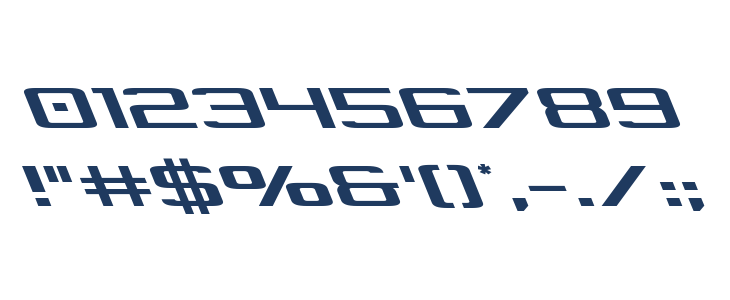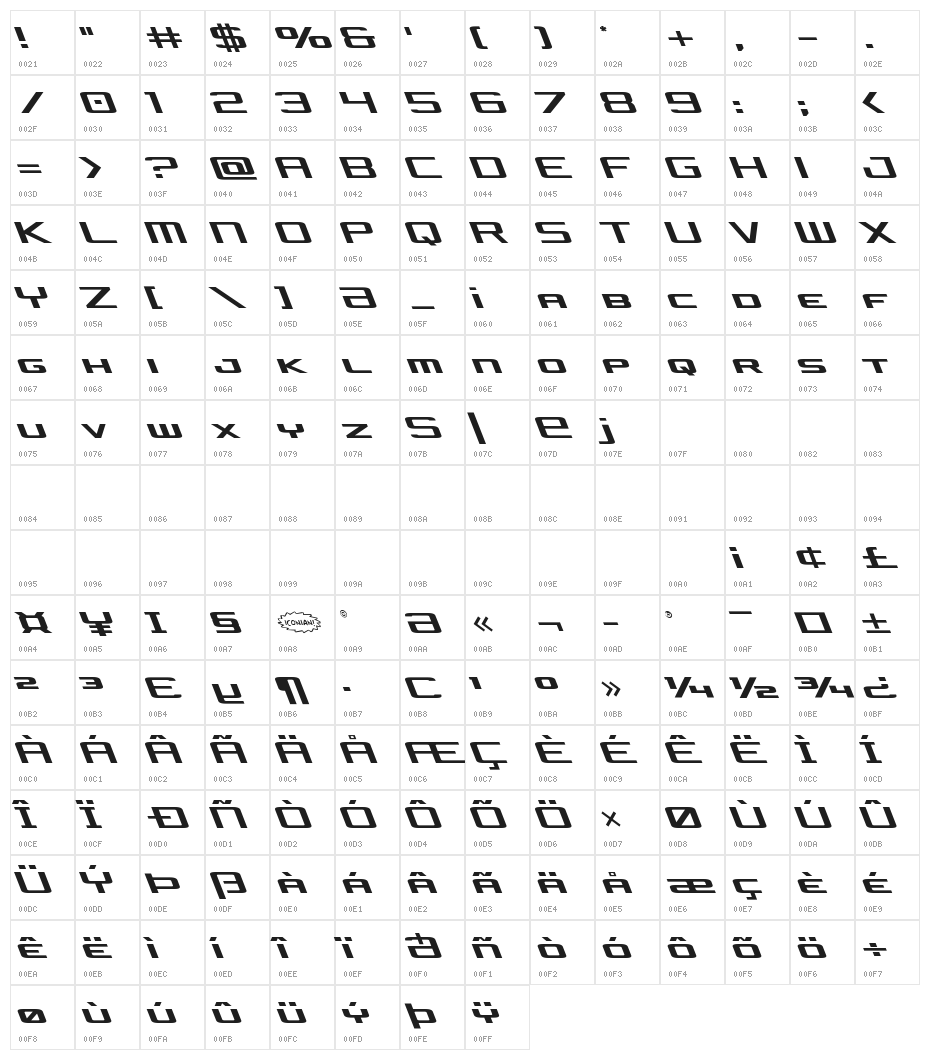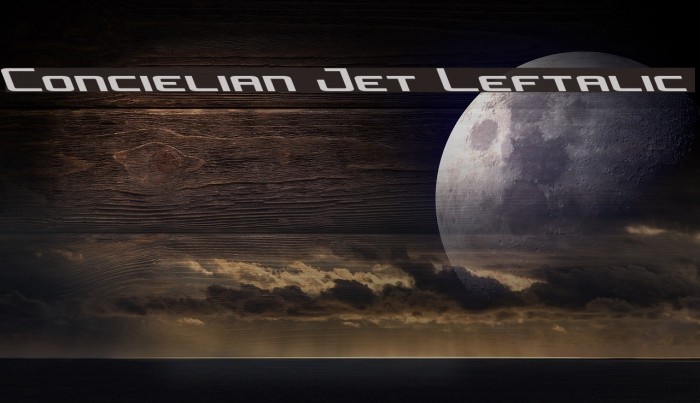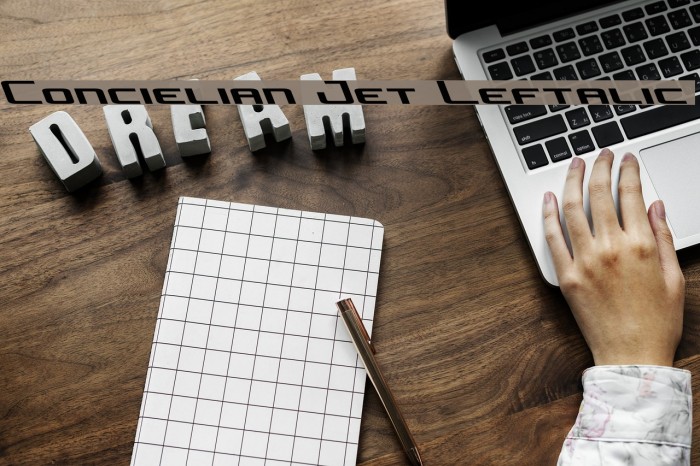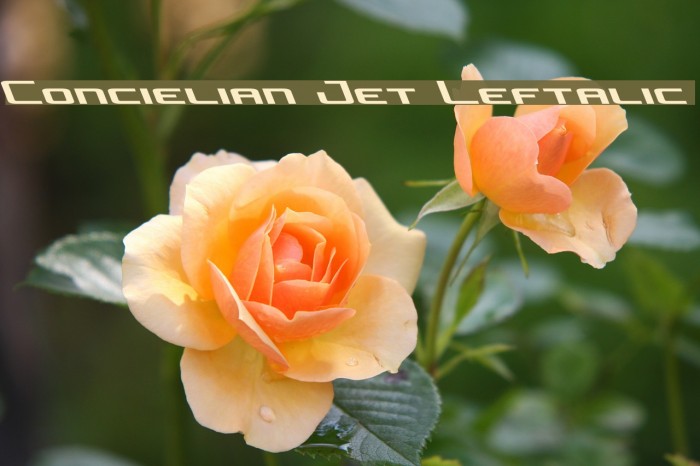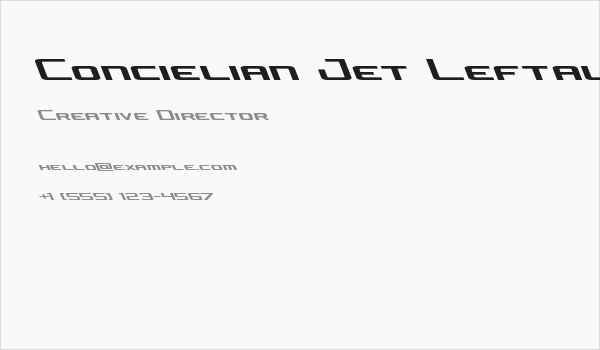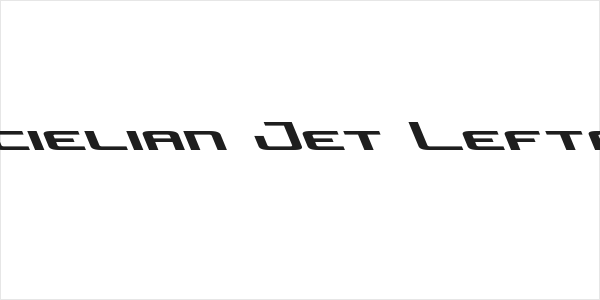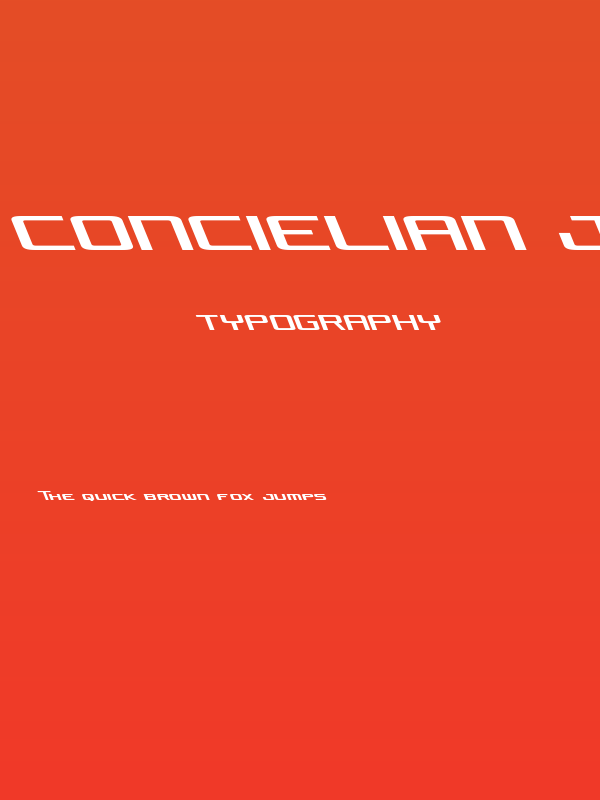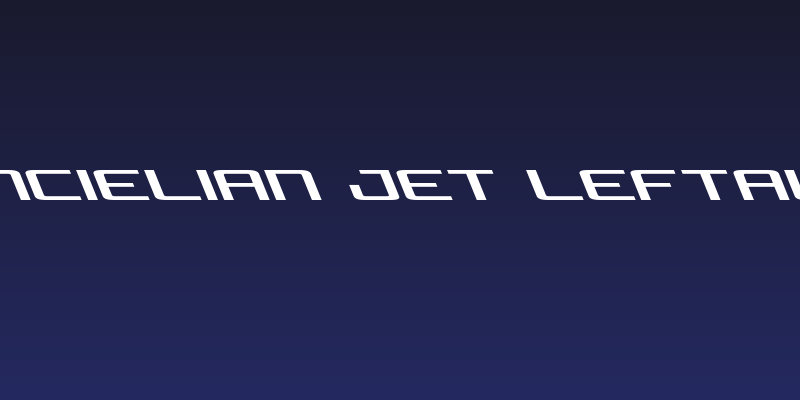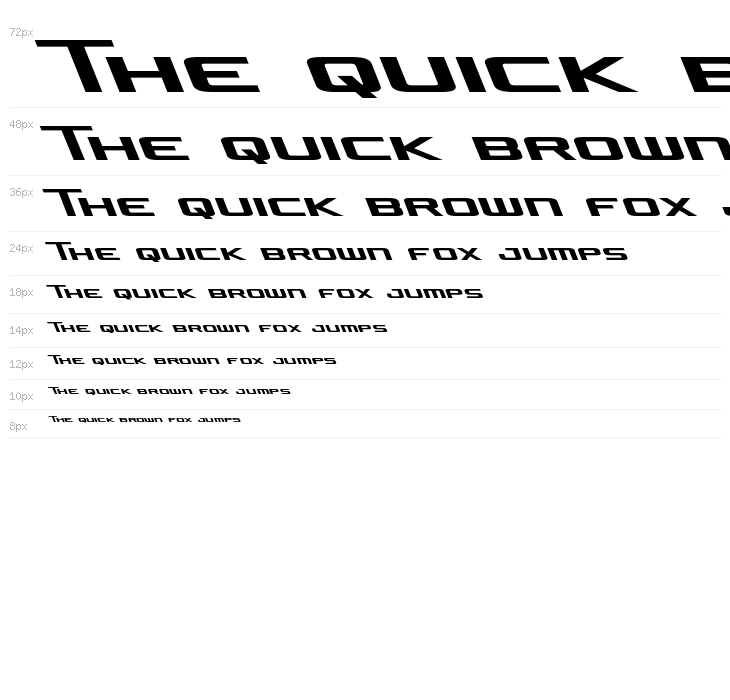
Concielian Jet Leftalic Font
Concielian Jet Leftalic Description
This font features a futuristic and angular design with a distinct italic slant to the left, giving it a dynamic and forward-moving appearance. The characters are constructed with sharp edges and geometric shapes, creating a sense of speed and modernity. The uppercase and lowercase letters maintain a consistent style, with the same angular cuts and slanted orientation. The numerals and special characters follow the same design principles, ensuring uniformity across all glyphs. This font's unique style makes it suitable for projects that require a bold and innovative look.
| Proposed Projects | Ideal for sci-fi themed projects, technology branding, video game titles, and modern advertising campaigns. |